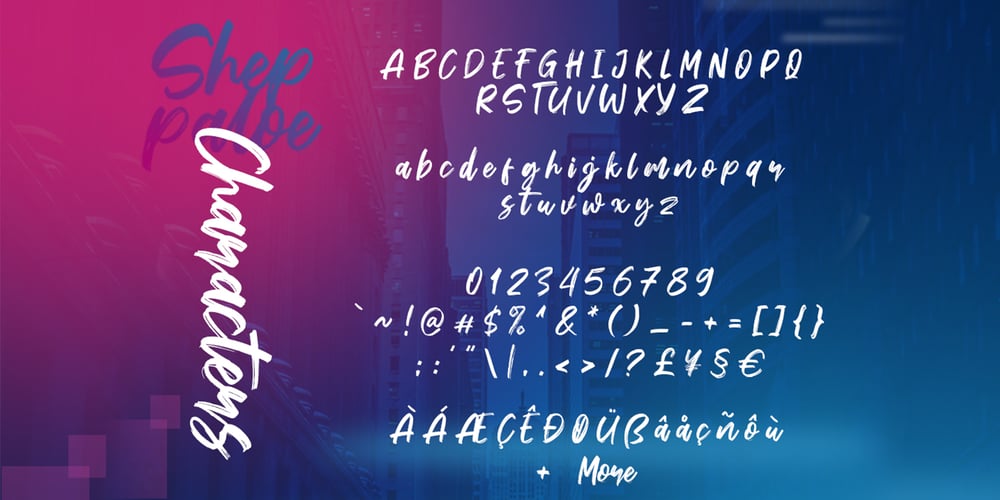
Sheppaloe Font Family was designed by Syaf Rizal and published by Khurasan. Sheppaloe contains 1 styles and family package options. Sheppaloe is a fresh handwritten font with an elegant and vintage feeling. Sheppaloe includes a full set capital and lowercase letters, as well as multi-lingual support, currency figures, numerals, & punctuation.